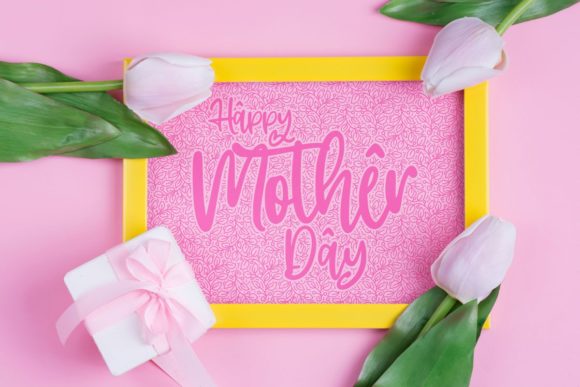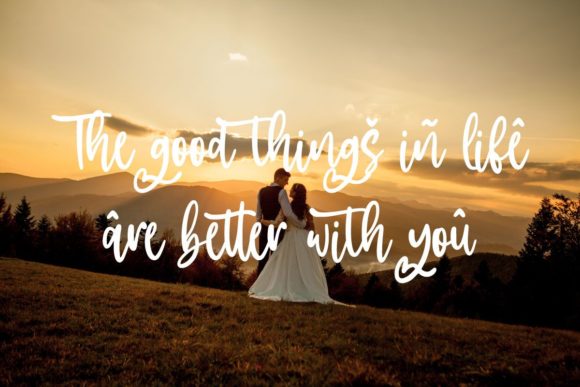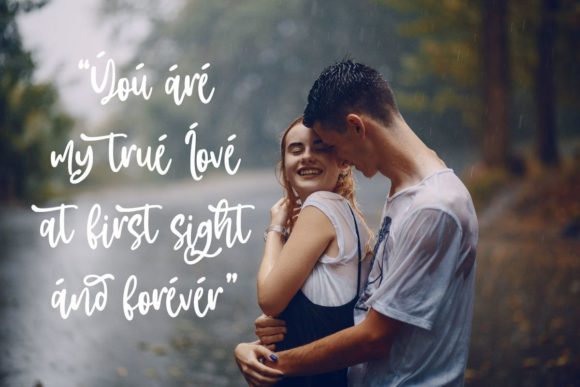
Introduction to Meastry Font
Do you ever find yourself stuck in front of a blank canvas, unsure of how to bring your creative vision to life? The struggle is real, but what if I told you that there’s a solution that can elevate your design projects to new heights? Enter the Meastry Font, a truly outstanding handwritten font that simplifies elegance into one stunning package.
Whether you’re working on a branding project, creating wedding invitations, or designing labels, the Meastry Font is the perfect design resource to help you achieve your goals. With its high-quality, handwritten style, this font is sure to add a touch of sophistication to any project. And the best part? It’s available for free download, making it a valuable addition to any designer’s toolkit.
Key Features of Meastry Font
- High-quality design resource ideal for creative projects requiring a unique touch
- Meastry Font features a transparent background, making it easy to integrate into various design elements
- Designed with a focus on elegance and sophistication, perfect for high-end creative projects
- Includes a range of characters, including uppercase and lowercase letters, numbers, and punctuation marks
- Size: Meastry Font is available in a single weight, ideal for achieving a consistent design aesthetic
Honest Review: Meastry Font
I recently had the chance to work with the Meastry Font, and I must say, it’s a great addition to any design project. The font is a high-quality, elegant script that’s perfect for adding a touch of sophistication to your creative project.
- ✨ It has a transparent background, making it easy to combine with other design elements.
- ✨ The font is highly customizable, allowing you to adjust the size, color, and style to fit your design needs.
However, I did encounter a few limitations when working with the Meastry Font. For example:
- ⚠️ It may not be suitable for projects that require a lot of bold, dramatic typography.
- ⚠️ The font may not be as versatile as some other script fonts on the market.
Overall, I was impressed with the Meastry Font. It’s a solid choice for designers looking for a high-quality, elegant script font. While it may have some limitations, it’s a great resource for anyone looking to add a touch of sophistication to their creative project.
The Meastry Font is a high-quality, versatile design resource ideal for creative projects. Its unique style and transparent background make it a great addition to any design.
For optimal results, use the Meastry Font in creative projects requiring a unique, elegant look. It’s ideal for branding, marketing materials, and editorial content. To get the most out of the Meastry Font, experiment with different font sizes, colors, and styles to create visually appealing designs.